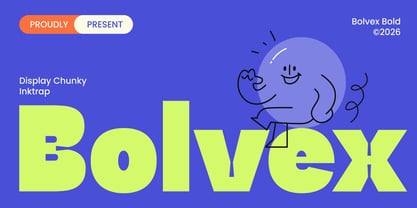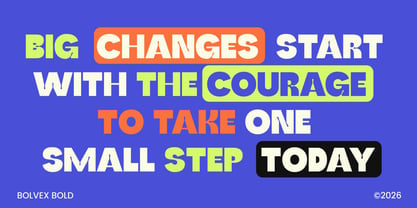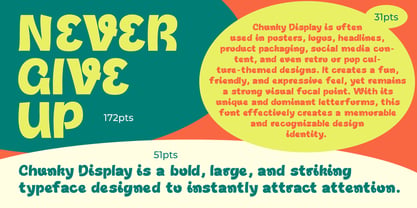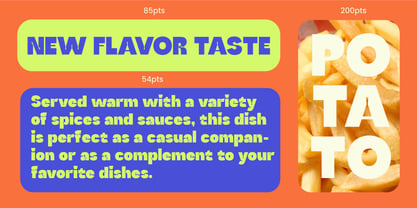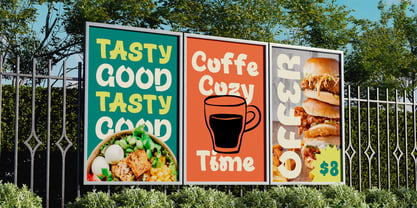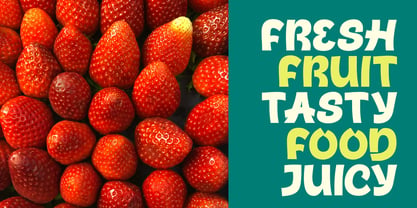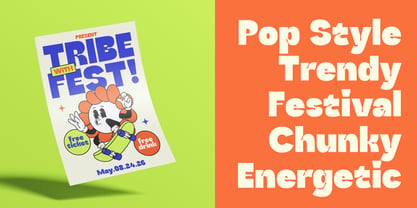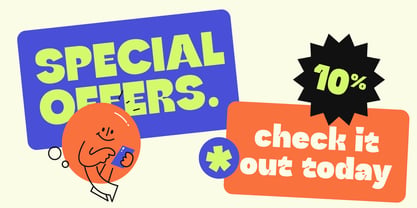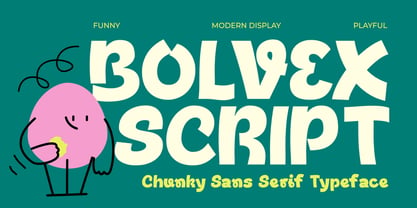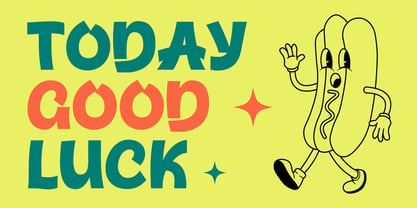
Bolvex Script
by Steptype
The Bolvex Script Font Family was designed by Mhd Husaini and published by Steptype. Bolvex Script contains 2 styles and family package options. More about this family
Bolvex is a chunky display sans built for maximum impact. With its heavy, confident strokes, playful bounce, and crisp ink traps, Bolvex turns short words into instant statements. It's the kind of typeface that makes a logo feel alive, a packaging label feel fun, and a headline impossible to scroll past.
Rounded terminals and organic weight give Bolvex a warm, friendly personality — while the ink traps keep it looking sharp and intentional at large sizes. Whether you're branding a food & beverage product, a quirky startup, a kids' brand, or a bold poster campaign, Bolvex delivers character without trying too hard.